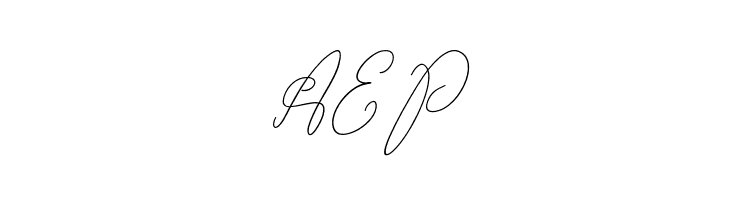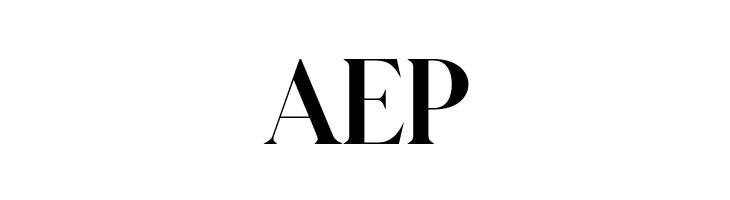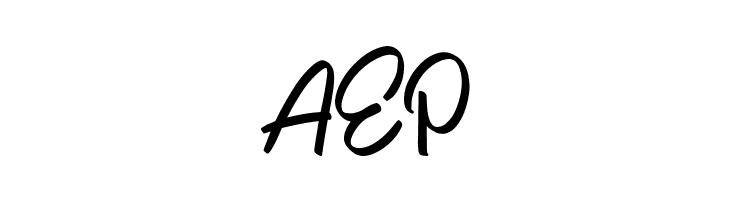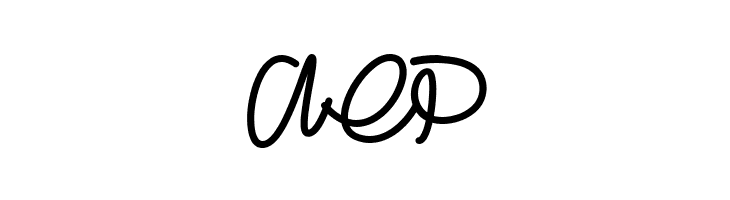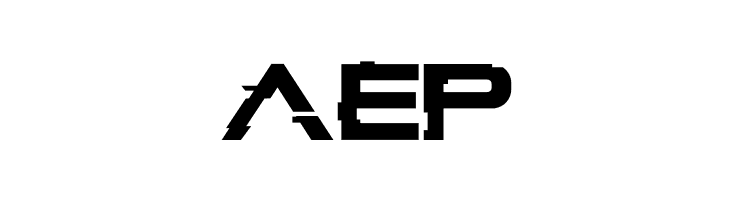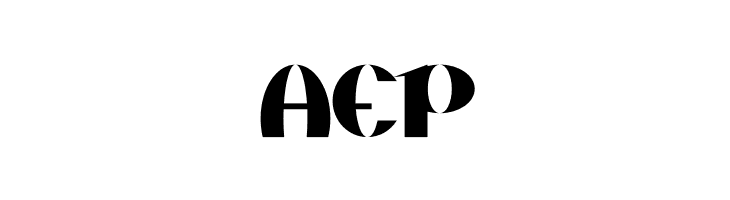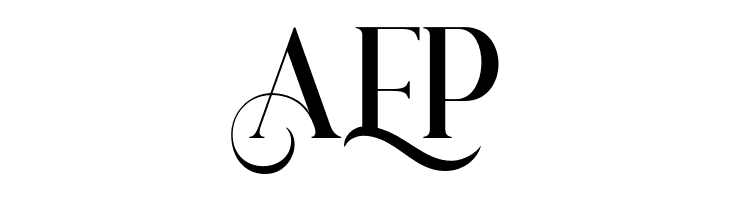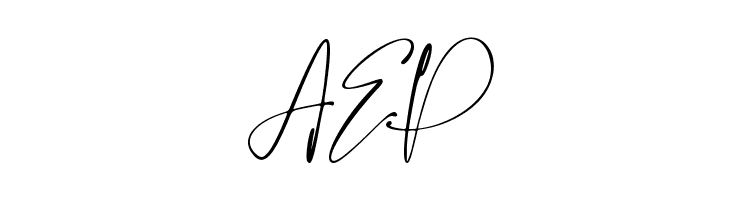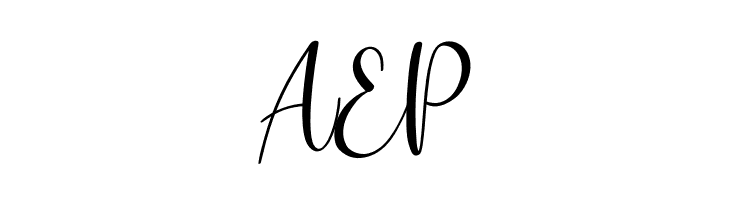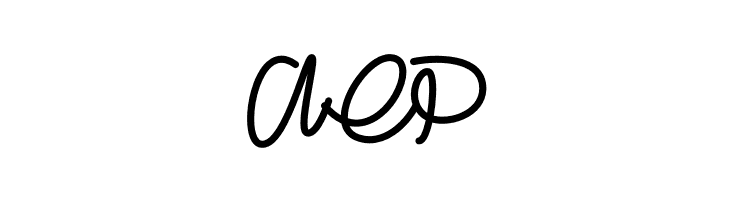
( Fonts by belovestudio - Abdul Manan - Personal-use only. For commercial use please contact owner. ) A lively handwritten font with fluid, continuous strokes. Download 28 Downloads@WebFont
( Fonts by BBA Key - Personal-use only. For commercial use please contact owner. ) A graceful script font with flowing, connected letters and high contrast strokes. Download 33 Downloads@WebFont
( Fonts by BBA Key - Personal-use only. For commercial use please contact owner. ) A graceful and elegant script font with flowing, cursive strokes. Download 26 Downloads@WebFont
( Fonts by Ilham Herry - Personal-use only. For commercial use please contact owner. ) A bold, condensed typeface with uniform strokes and minimal contrast. Download 103 Downloads@WebFont
( Fonts by a Des Gomez. Personal-use only. For commercial use please contact owner. ) A playful handwritten font with a whimsical and casual style. Download 121 Downloads@WebFont
( Fonts by Wahyu Eka Prasetya - wepfont.com - Personal-use only. For commercial use please contact owner. ) A bold, textured font with a brush-like, artistic style. Download 57 Downloads@WebFont
( Fonts by Glendi Prasetyo - Personal-use only. For commercial use please contact owner. ) A playful, handwritten font with a casual and friendly style. Download 32 Downloads@WebFont
( Fonts by Glendi Prasetyo - Personal-use only. For commercial use please contact owner. ) A playful, handwritten font with uneven strokes and a casual style. Download 38 Downloads@WebFont
( Fonts by Kong Font - fontkong.com - Personal-use only. For commercial use please contact owner. ) A bold, flowing script font with elegant curves and high contrast strokes. Download 63 Downloads@WebFont
( Fonts by typeformerstudio.com - Personal-use only. For commercial use please contact owner. ) A bold, rounded sans-serif font with smooth curves and uniform strokes. Download 63 Downloads@WebFont
( Fonts by Miftahur Rohmad - Personal-use only. For commercial use please contact owner. ) A bold, geometric font with high contrast and unique cutout designs. Download 35 Downloads@WebFont
( Fonts by Colllab Studio - Personal-use only. For commercial use please contact owner. ) A bold, expressive script font with a hand-drawn, dynamic style. Download 23 Downloads@WebFont
( Free for a personal use. For a commercial use please visit www.kevinandamanda.com ) A dynamic script font with fluid, interconnected letterforms and a playful aesthetic. Download 967 Downloads@WebFont
( Fonts by Edric Studio www.creativefabrica.com/designer/edricstudio/ - Personal-use only. For commercial use please contact owner. ) A bold, geometric font with a modern, industrial look. Download 145 Downloads@WebFont
( Fonts by Edric Studio www.creativefabrica.com/designer/edricstudio/ - Personal-use only. For commercial use please contact owner. ) A bold, distressed font with a rugged, grunge appearance. Download 203 Downloads@WebFont
( Fonts by Edric Studio www.creativefabrica.com/designer/edricstudio/ - Personal-use only. For commercial use please contact owner. ) A bold, italic font with a modern and dynamic style. Download 82 Downloads@WebFont
( Fonts by Sansakerta - DNArt Design - Personal-use only. For commercial use please contact owner. ) An elegant serif font with decorative swashes and a classic-modern blend. Download 66 Downloads@WebFont
( Fonts by Mans Greback - www.mansgreback.com - Personal-use only. For commercial use please contact owner. ) A modern, geometric font with clean lines and distinctive shapes. Download 27 Downloads@WebFont
( Fonts by www.junkohanhero.com - Personal-use only. For commercial use please contact owner. ) A playful, handwritten font with uneven strokes and a casual style. Download 39 Downloads@WebFont
( Fonts by typeformerstudio.com - Personal-use only. For commercial use please contact owner. ) A bold, modern font with strong vertical lines and slightly condensed letterforms. Download 31 Downloads@WebFont
( Fonts by Colative Studio - Personal-use only. For commercial use please contact owner. ) A lively script font with smooth, connected strokes and elegant curves. Download 32 Downloads@WebFont
( Fonts by Teguh Pranata - Personal-use only. For commercial use please contact owner. ) A bold, modern font with thick, uniform strokes and a slightly condensed appearance. Download 34 Downloads@WebFont
( Fonts by Wino S Kadir - weknow - www.revolge.com/shop/weknow/ - Personal-use only. For commercial use please contact owner. ) A bold, pixelated font with a retro digital style. Download 567 Downloads@WebFont
( Fonts by MaknaStudio - Yudis Tira - Personal-use only. For commercial use please contact owner. ) A glitch-inspired, bold, and angular font with a digital, futuristic style. Download 33 Downloads@WebFont
( Fonts by Creatype Studio - Rian Rahardi - Personal-use only. For commercial use please contact owner. ) A bold, distressed font with a glitch effect for a modern, edgy look. Download 26 Downloads@WebFont
( Fonts by Figuree Studio - Icep Fadhil - Personal-use only. For commercial use please contact owner. ) A playful, handwritten script font with smooth, flowing characters. Download 37 Downloads@WebFont
( Fonts by Abas Creative - Farhan Ramadhika - Personal-use only. For commercial use please contact owner. ) A lively and expressive handwritten font with fluid, dynamic letterforms. Download 92 Downloads@WebFont